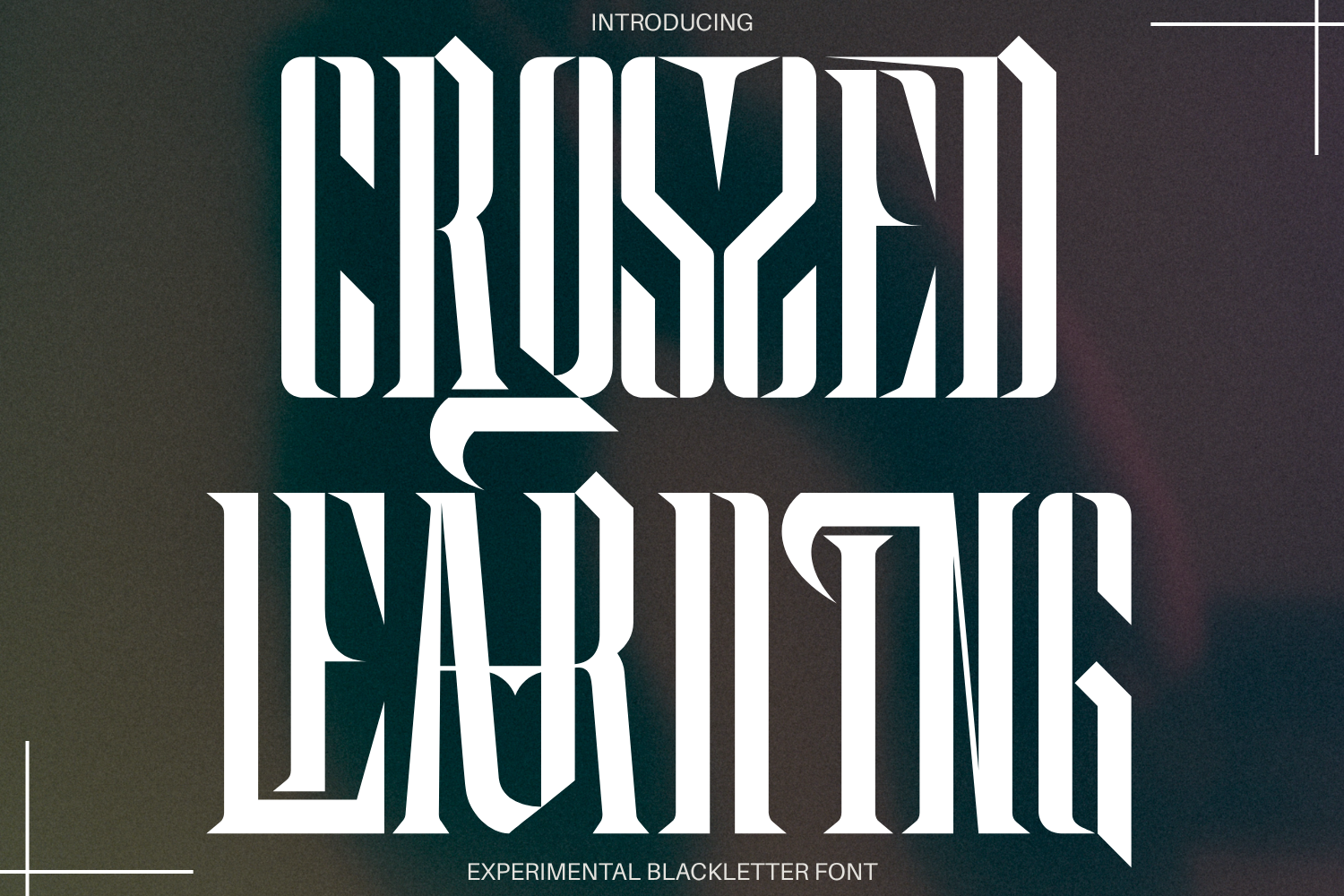
Crossed Learning - Cyber Gothic Font
Crossed Learning - Cyber Gothic Font – Modern Cyber Gothic & Ultra-Condensed Display Serif, a formidable ultra-condensed display serif font that fuses the majestic architecture of classical Blackletter with raw, futuristic cyber-brutalism. Defined by its towering vertical proportions, razor-sharp dagger spurs, and chiseled angular cutouts, this typeface commands maximum visual authority in any layout.
Engineered specifically for high-impact headlines, Crossed Learning balances heavy vertical stems against sharp, thorn-like terminals and geometric inner counters. It is the definitive choice for streetwear apparel graphics, metal and phonk album covers, cyberpunk event posters, dark fantasy game UI, and bold branding identities looking to make a fierce statement.
Uppercase & Lowercase Letters
Around 100 Special Ligatures & Alternates
Accented Characters for multilingual support
🔤About 100 ligatures combined with Stylistic Alternates Font:
ac ad al an ar as at au av be ca ce ch co ct de di ea ec ed ee el em en ep er es et fe fo fr ge ha he hi ho ie ic il in io ir is it ju ke la le li ll lo ly ma me mi nc nd ne ng no nt ns oc of om on oo op or ot ou ow pa pr ra rd re ri ro rs rt se sh si so ss st ta te th ti to tr tt um un ur ve wi wo